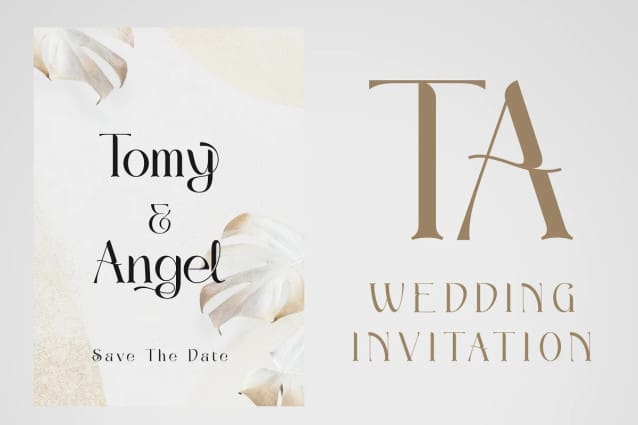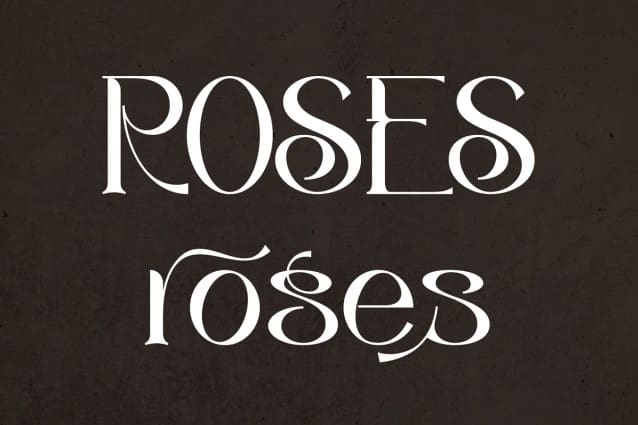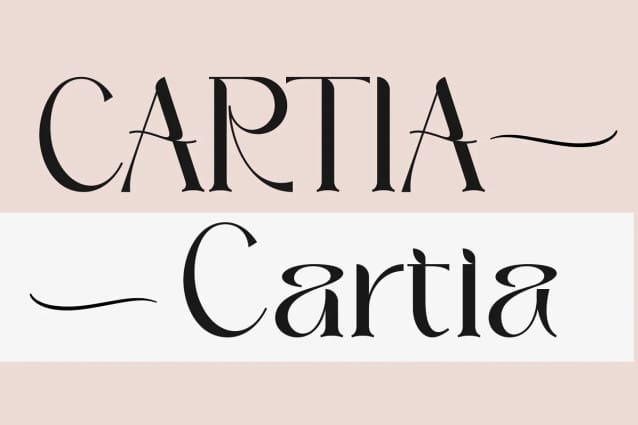
Cartia Font
Cartia Font, a captivating serif typeface that effortlessly combines modernity with classic charm. With its unique style and contemporary look, this font is the perfect choice for a wide range of projects. From modern designs to retro vintage aesthetics, from branding and advertising, this font adds a touch of elegance to every creative endeavor. Let yourself be enchanted by its incredibly stylish and glamorous vibe, and unleash your creativity to create truly spectacular designs! With its PUA encoding, accessing all the enchanting glyphs is a breeze, allowing you to unlock endless possibilities for your artistic expression.